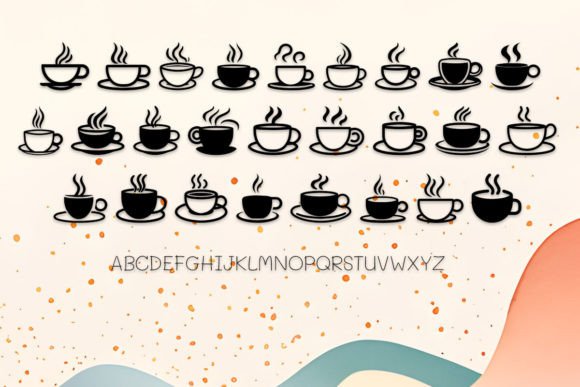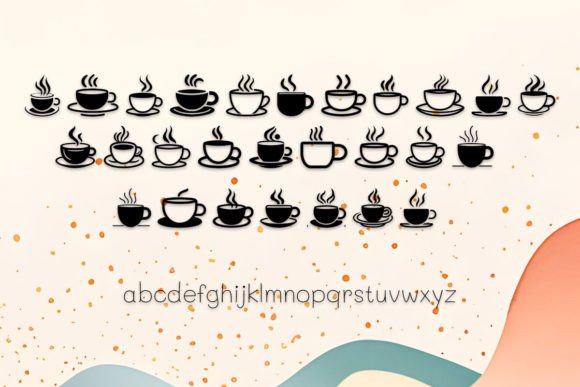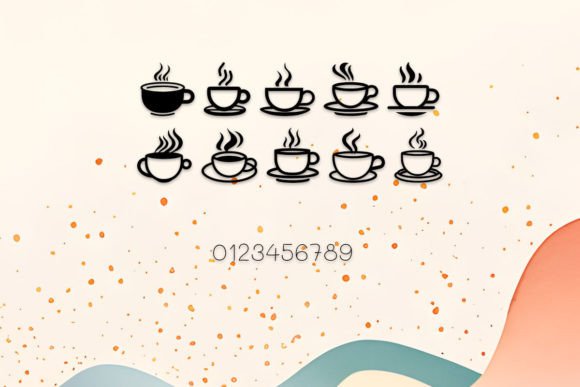
Introduction to Coffee & Tea Cup Font
Coffee & Tea Cup Dingbats: 26 uppercase, 26 lowercase, 10 numbers (0-9).
A delightful collection of cups and mugs in a charming font Add a dash of warmth and comfort to your designs.
Key Features of Coffee & Tea Cup Font